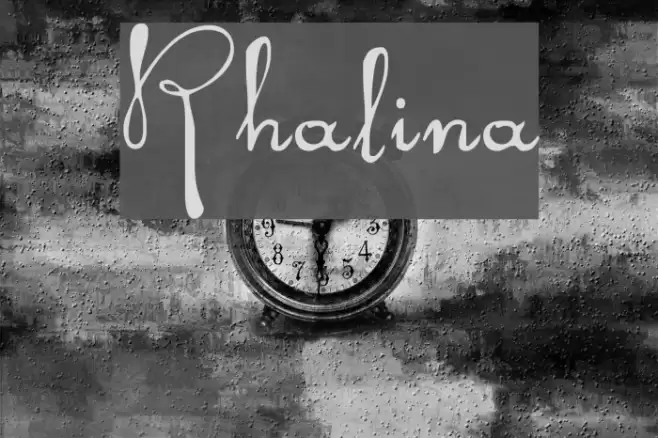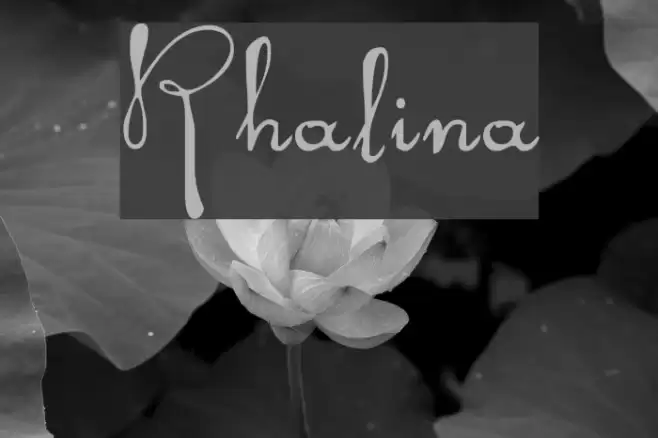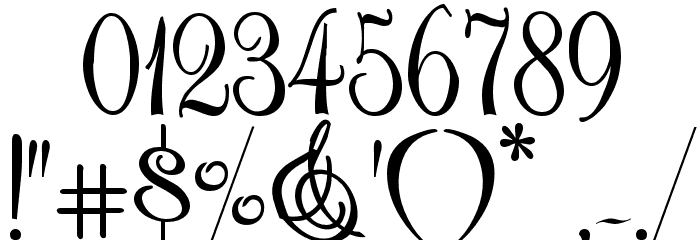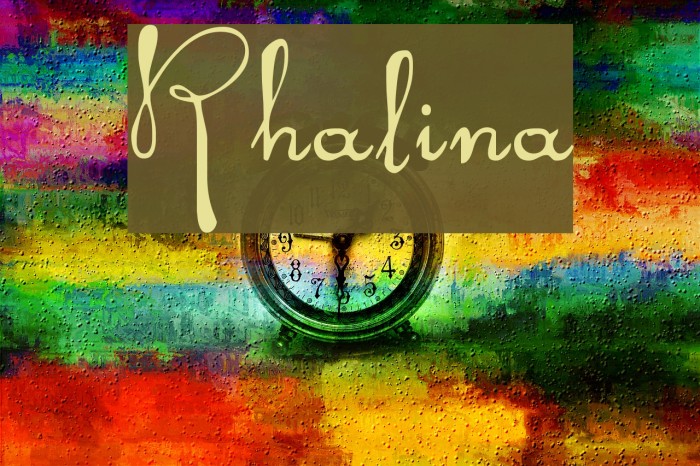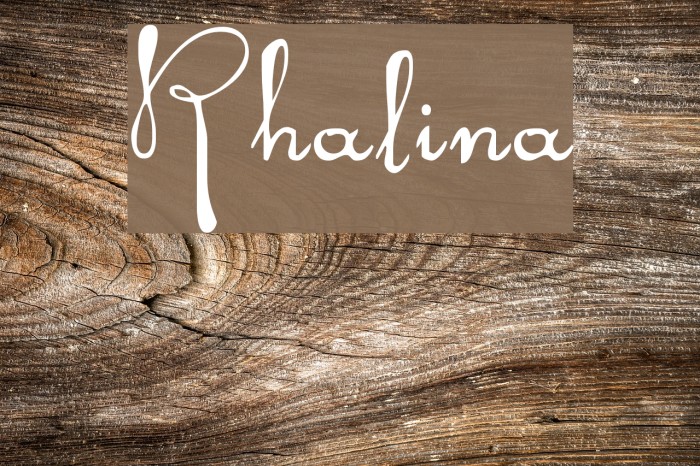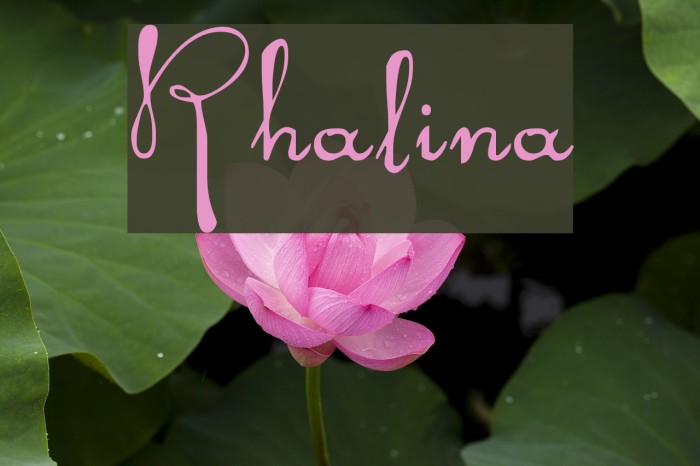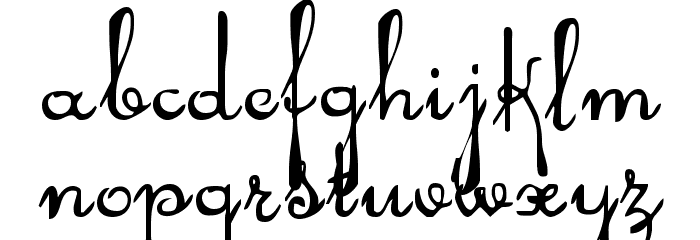
Rhalina Font
Rhalina Description
This font features an elegant and whimsical design, characterized by its flowing, cursive-like strokes and intricate loops. The uppercase letters are particularly ornate, with each character displaying unique flourishes that add a touch of sophistication and playfulness. The lowercase letters maintain a consistent style, offering a more subdued yet still decorative appearance. Numbers and special characters follow the same aesthetic, ensuring a cohesive look across all elements. The overall design is reminiscent of calligraphy, making it suitable for projects that require a touch of elegance and creativity.
An elegant, whimsical font with flowing, cursive-like strokes and intricate loops from Uncategorized fonts.
- Proposed Projects: Ideal for wedding invitations, greeting cards, branding materials, and decorative posters.
- Use Case: Logos, Invitations, Decorative text